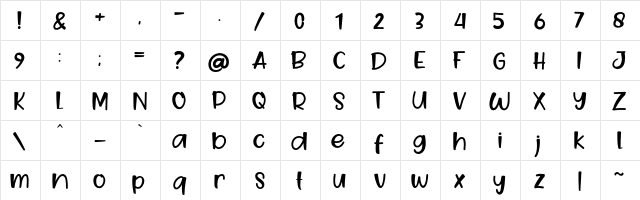
Goo Easter Regular
Design Context for Goo Easter Typeface
Goo Easter is a composed and adaptable typeface that performs quietly and consistently across a wide range of design contexts.